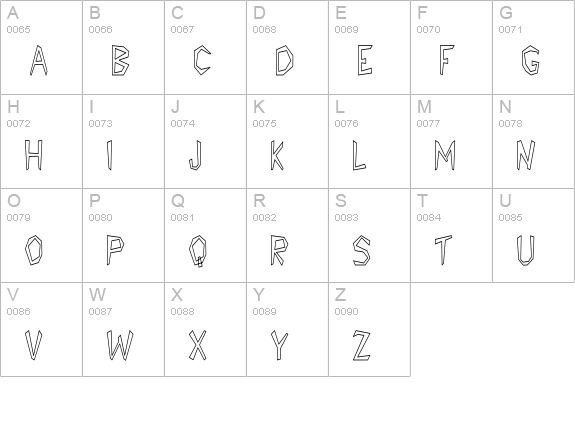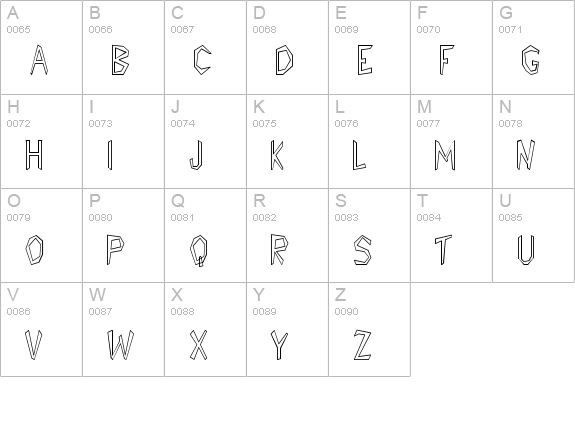
RSCavemanHC Font Details
RSCavemanHC font is a unique and eye-catching typeface that exudes a sense of primitive charm and raw energy. Its rugged and uneven strokes give off a handcrafted feel, reminiscent of ancient cave paintings. This font is perfect for projects that require a touch of authenticity and a hint of ancient history. The best part about RSCavemanHC font is that it is completely free to download at FontsMarket.com. Whether you're working on a design project, creating an eye-catching poster, or simply looking to add a touch of personality to your digital creations, this font is sure to make a statement. Embrace the spirit of the past with RSCavemanHC font and let your creativity run wild.